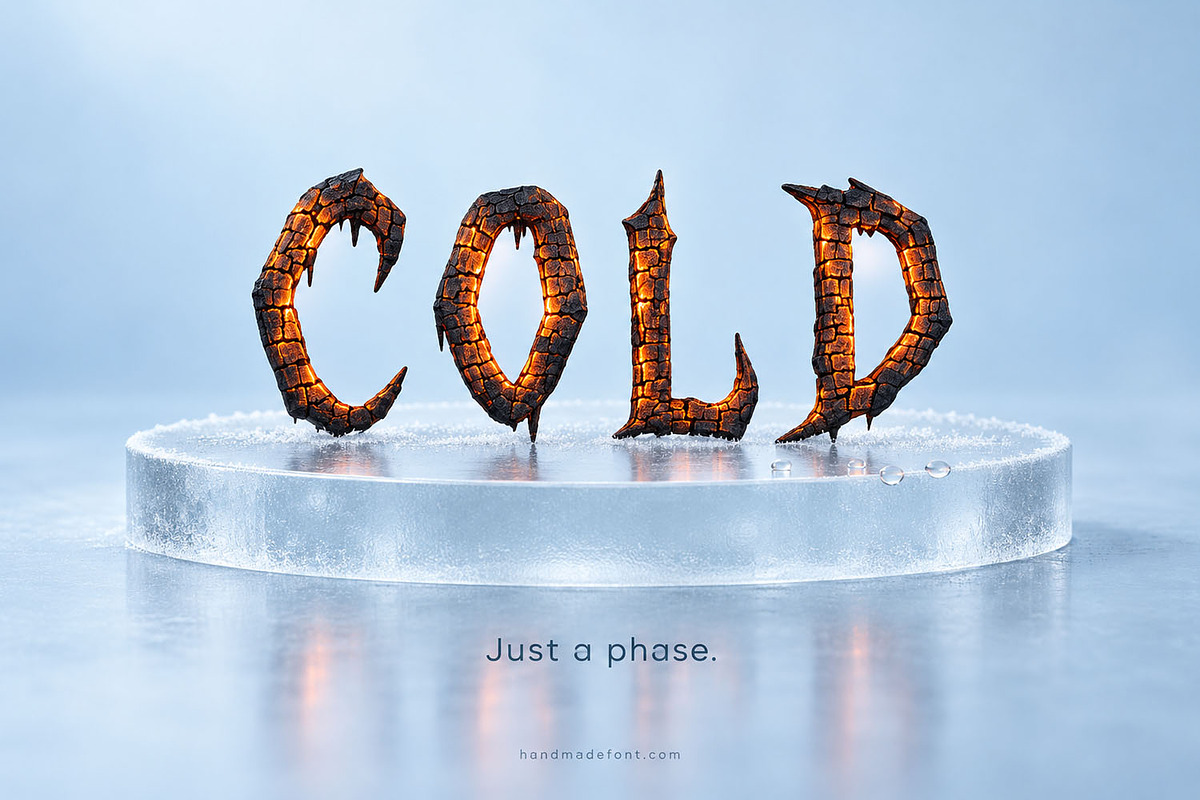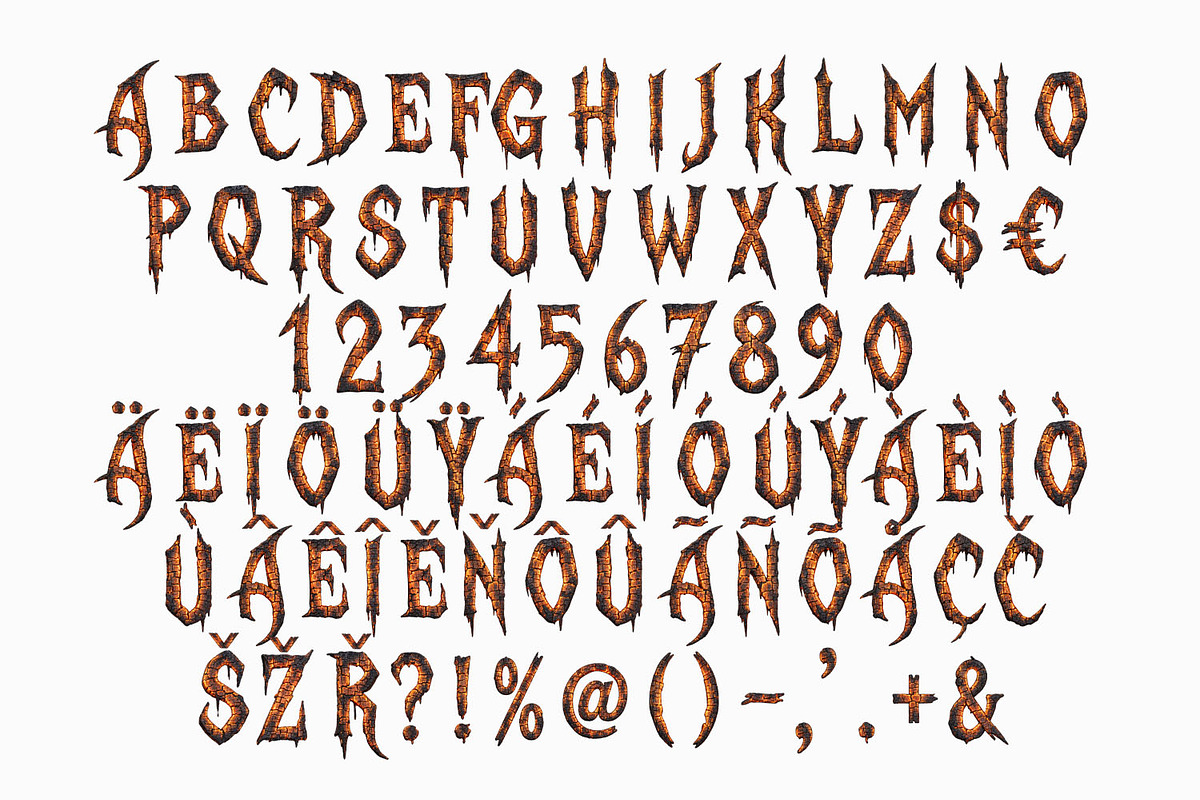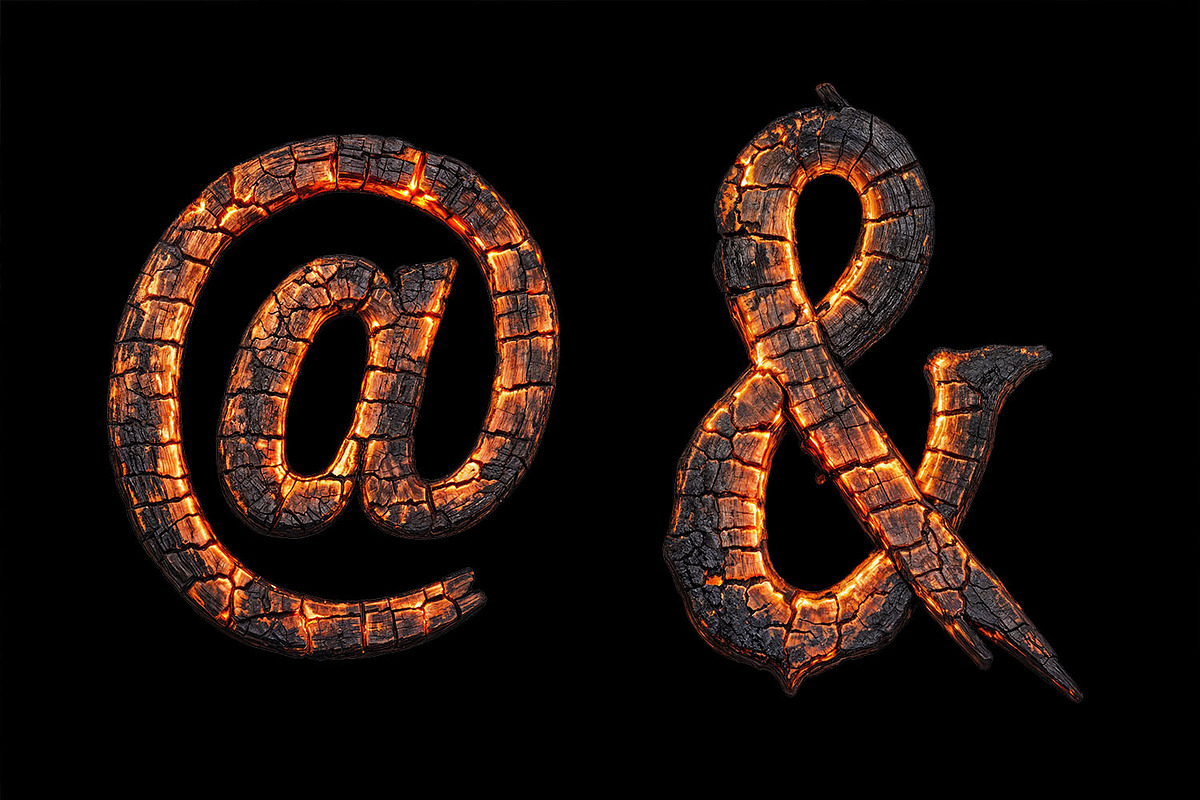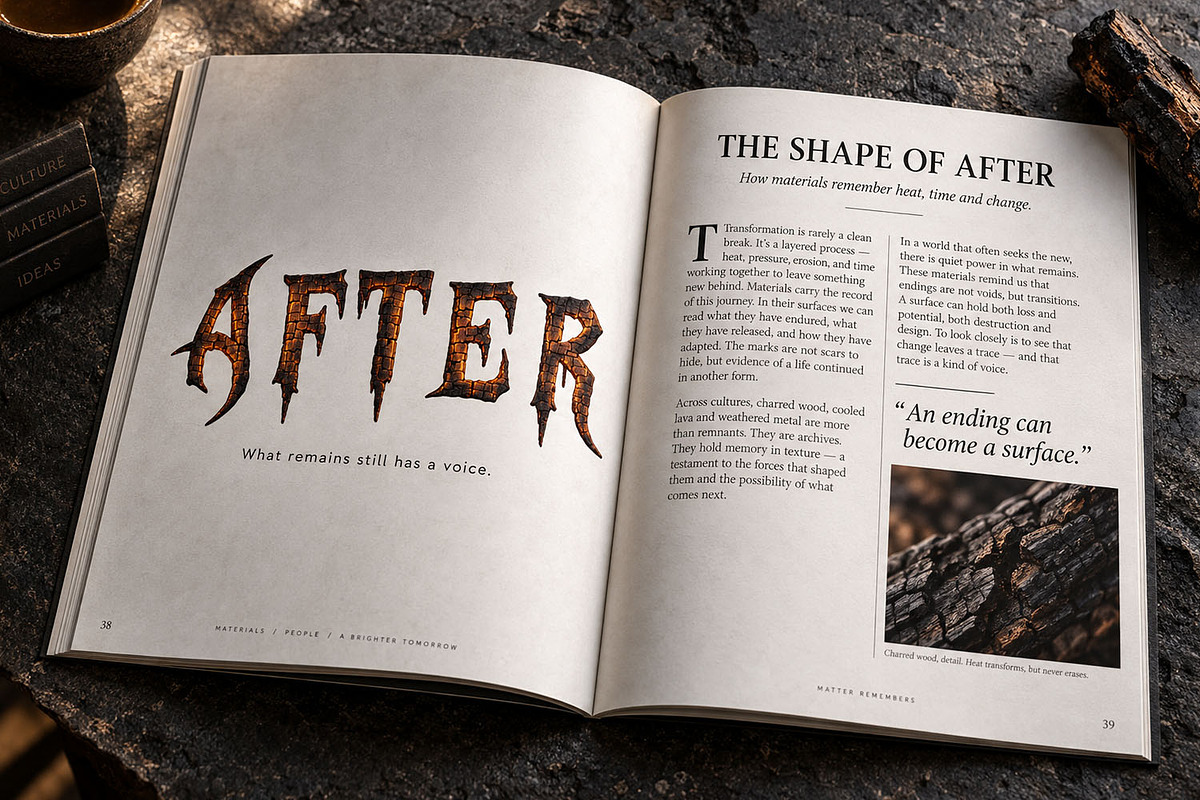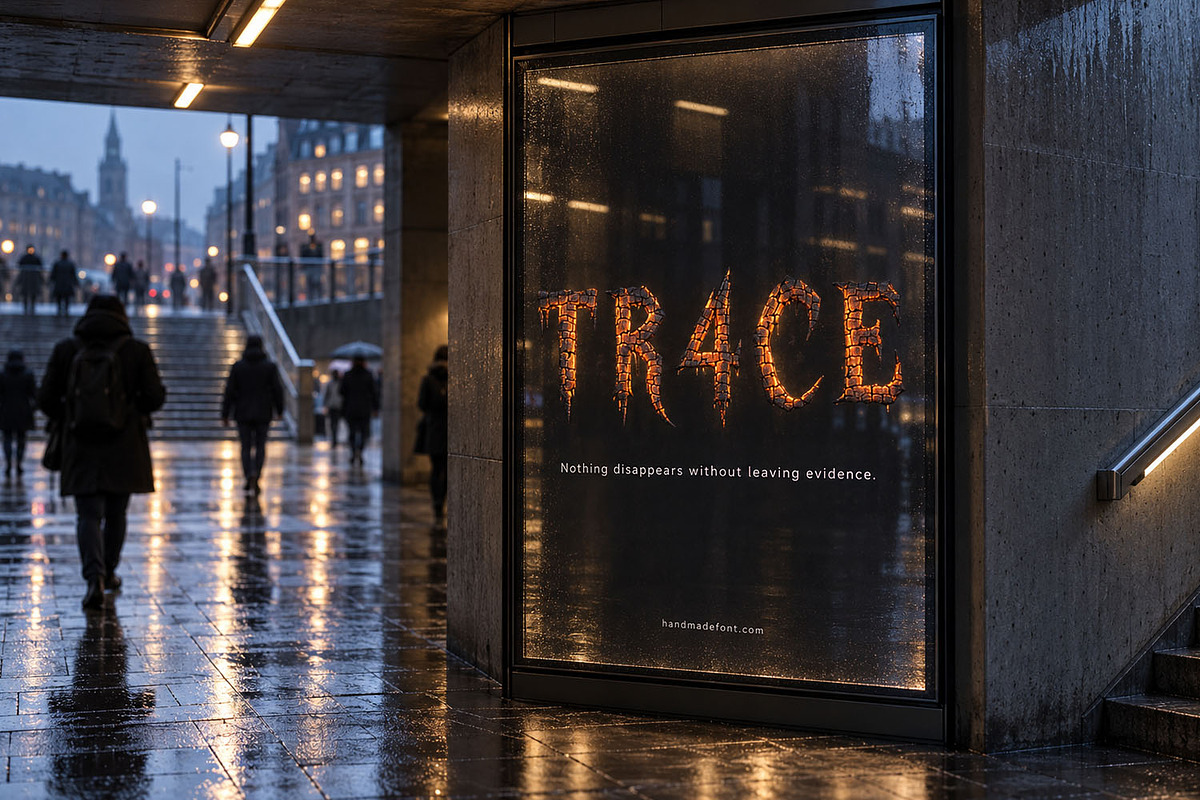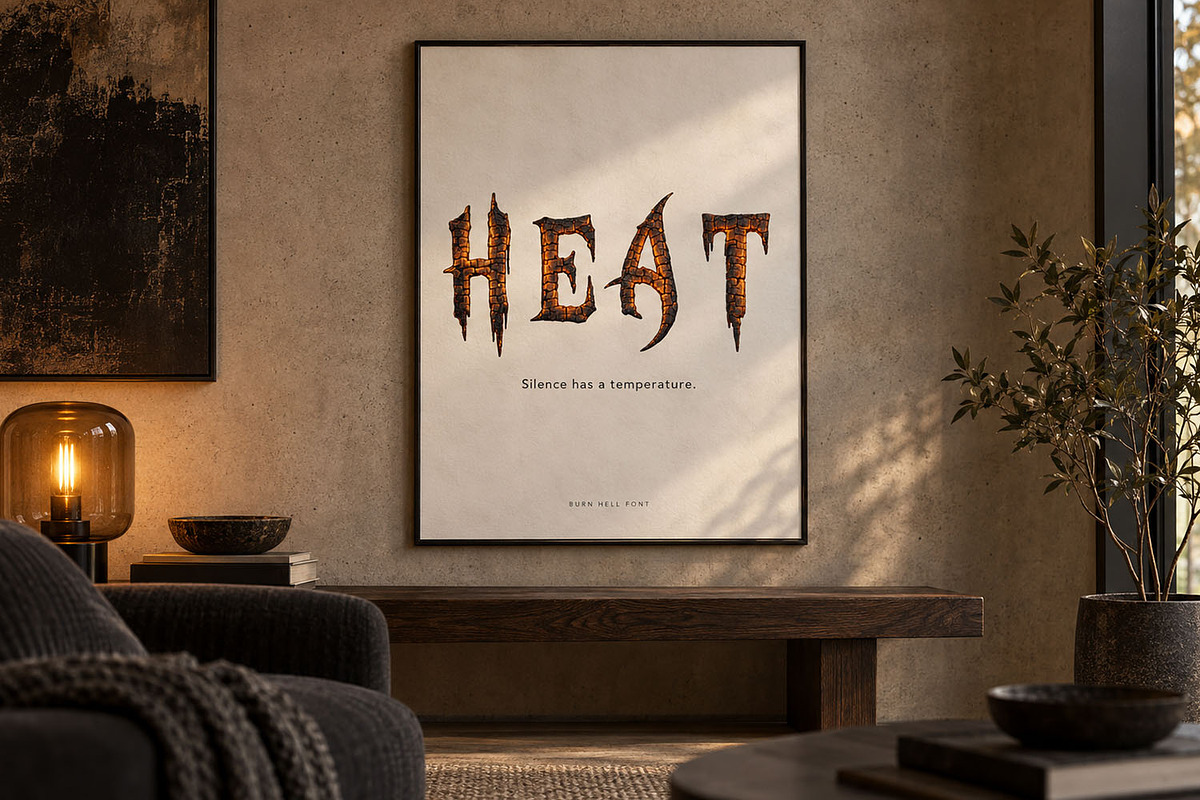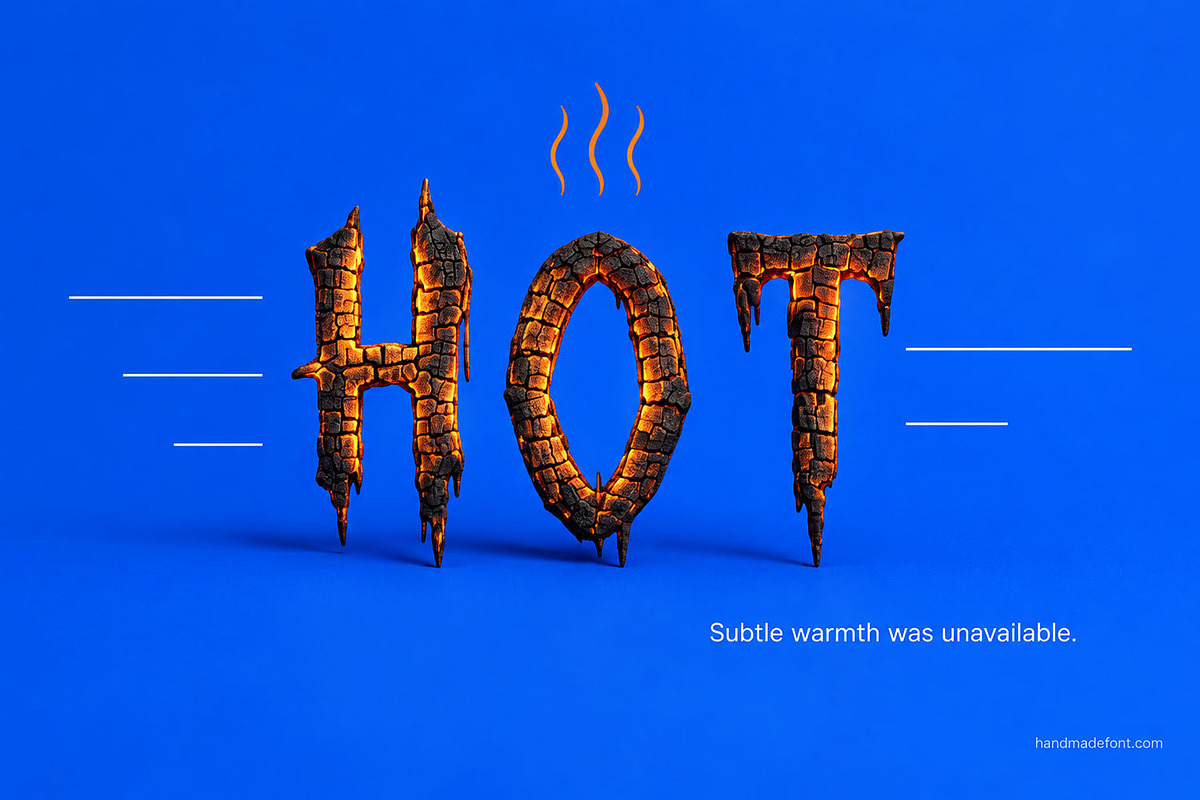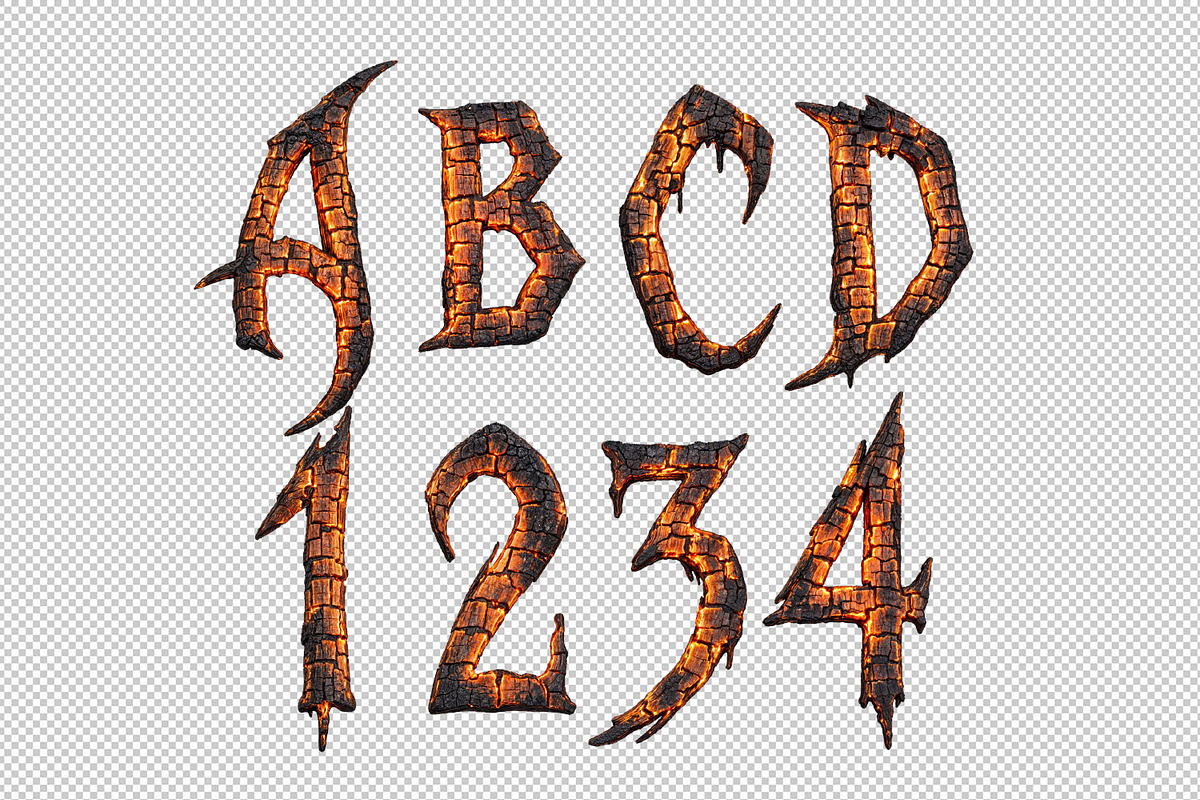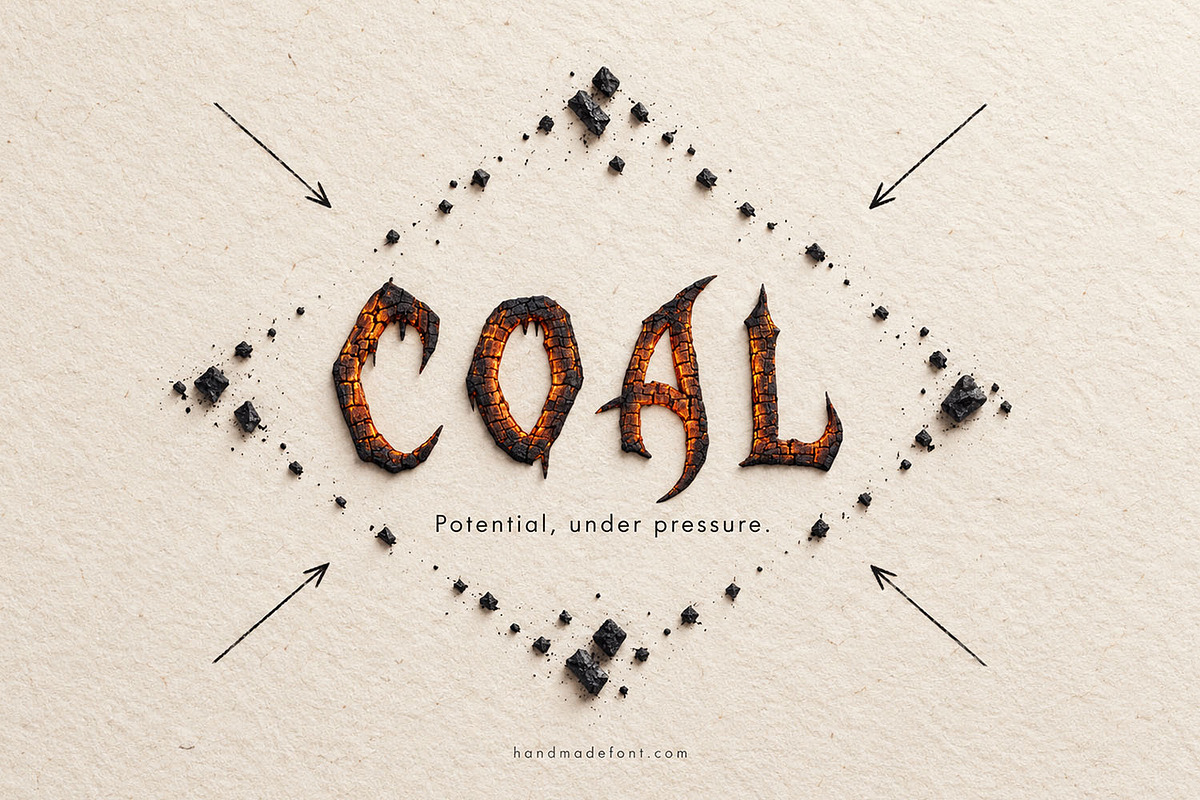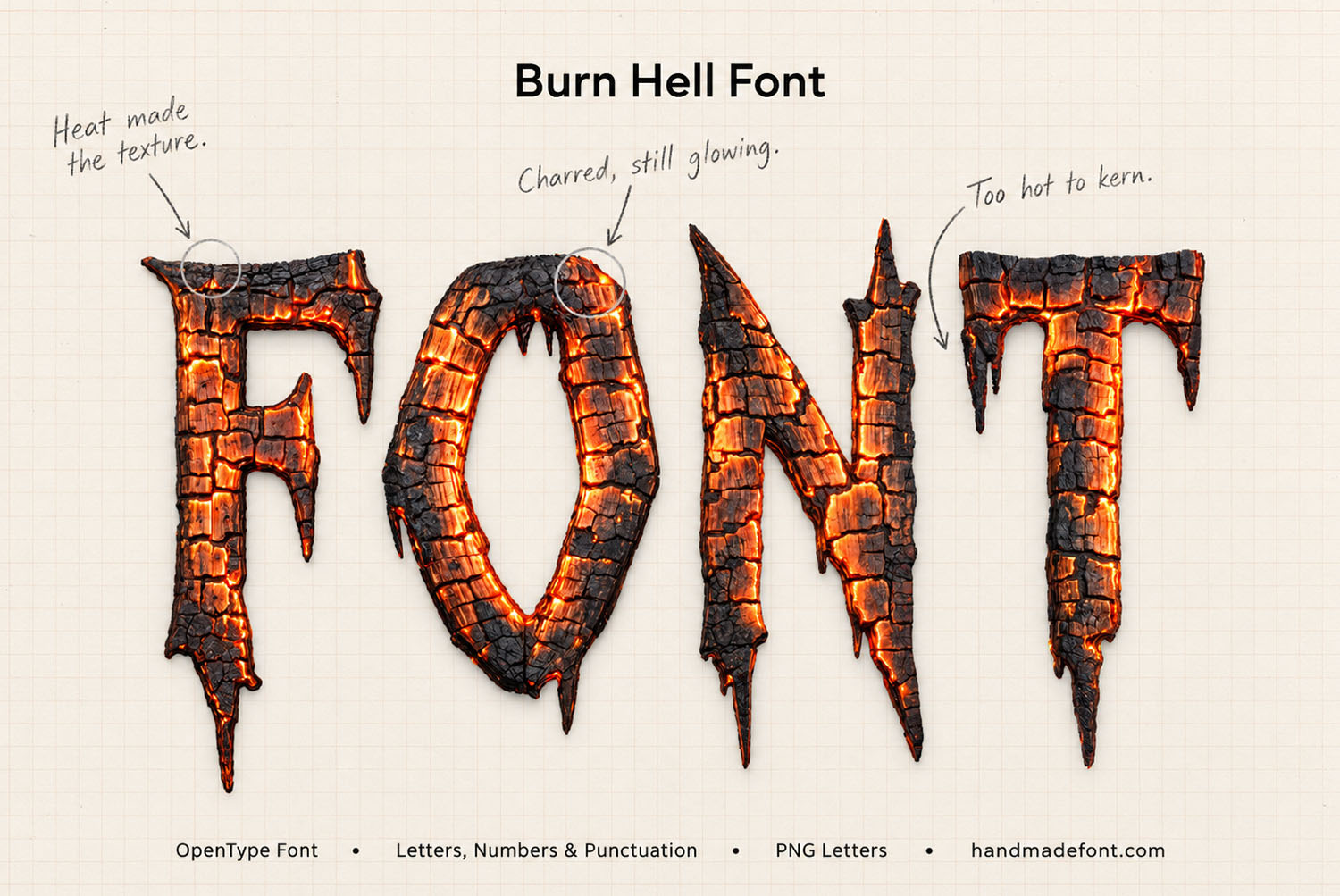
Burn Hell Font
Burn Hell Font is a fiery handmade typeface inspired by cracked charcoal, glowing embers, and molten lava. Each character looks scorched, rugged, and alive with heat, creating a dramatic horror-fantasy atmosphere. Use it for Halloween posters, metal album covers, game titles, dark event graphics, fantasy branding, fiery logos, and cinematic social-media designs. Burn Hell Font includes uppercase and lowercase letters, numbers, punctuation, and selected accented characters. The package contains an OTF font file for easy typing, plus every character as an individual PNG letter on a transparent background. Build blazing custom titles and powerful compositions with a truly volcanic visual impact.
Letters : A B C D E F G H I J K L M N O P Q R S T U V W X Y Z Ä Ë Ï Ö Ü Ÿ Á É Í Ó Ú Ý À È Ì Ò Ù Â Ê Î Ě Ň Ô Û Ã Ñ Õ Å Ç Č Š Ž Ř
Numbers : 0 1 2 3 4 5 6 7 8 9
Others : ! ? - . ' $ € % & # @